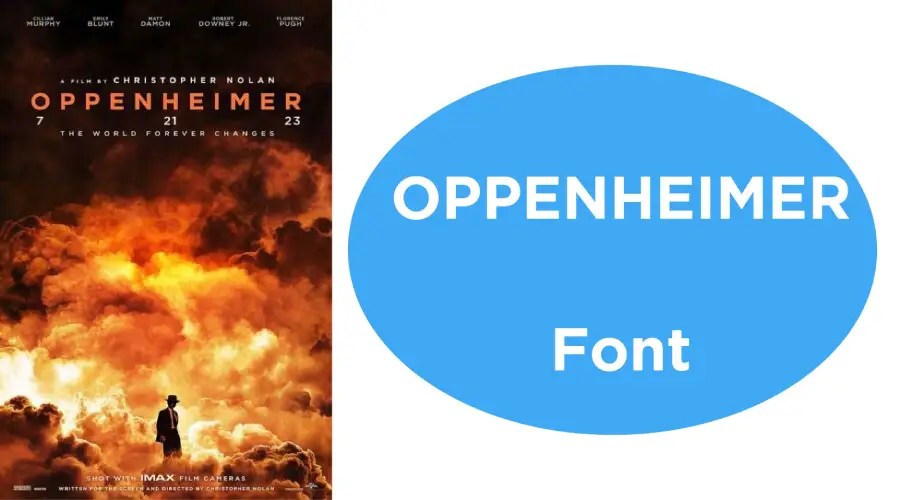
Web create a text effect oppenheimer with our online custom font generator. Web create a text effect oppenheimer with our online custom font generator. Oppenheimer text effect ai, eps. Web create text graphics with oppenheimer font, a free and open source font that resembles gotham bold and metropolis bold.
Web create text graphics with oppenheimer font, a free and open source font that resembles gotham bold and metropolis bold. Web create a text effect oppenheimer with our online custom font generator. Web create text graphics with oppenheimer font, a free and open source font that resembles gotham bold and metropolis bold. Web create a text effect oppenheimer with our online custom font generator. Oppenheimer text effect ai, eps.